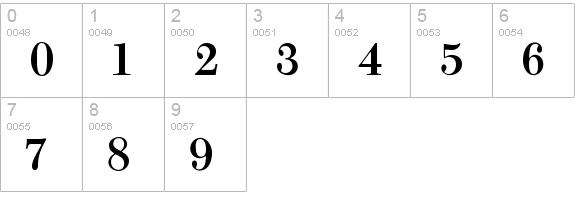
CameliaBold Font Details
CameliaBold is a beautifully crafted font that exudes elegance and sophistication. With its bold and striking design, this typeface is perfect for making a statement in your projects. The strong, clean lines of CameliaBold make it versatile and suitable for a wide range of design applications, from branding to editorial design. What sets CameliaBold apart is not only its aesthetic appeal but also its accessibility. This font is freely available to download at FontsMarket.com, making it easy for designers and creatives to access and use in their projects without any restrictions. Whether you are creating a logo, poster, or website, CameliaBold is sure to add a touch of class and style to your designs.